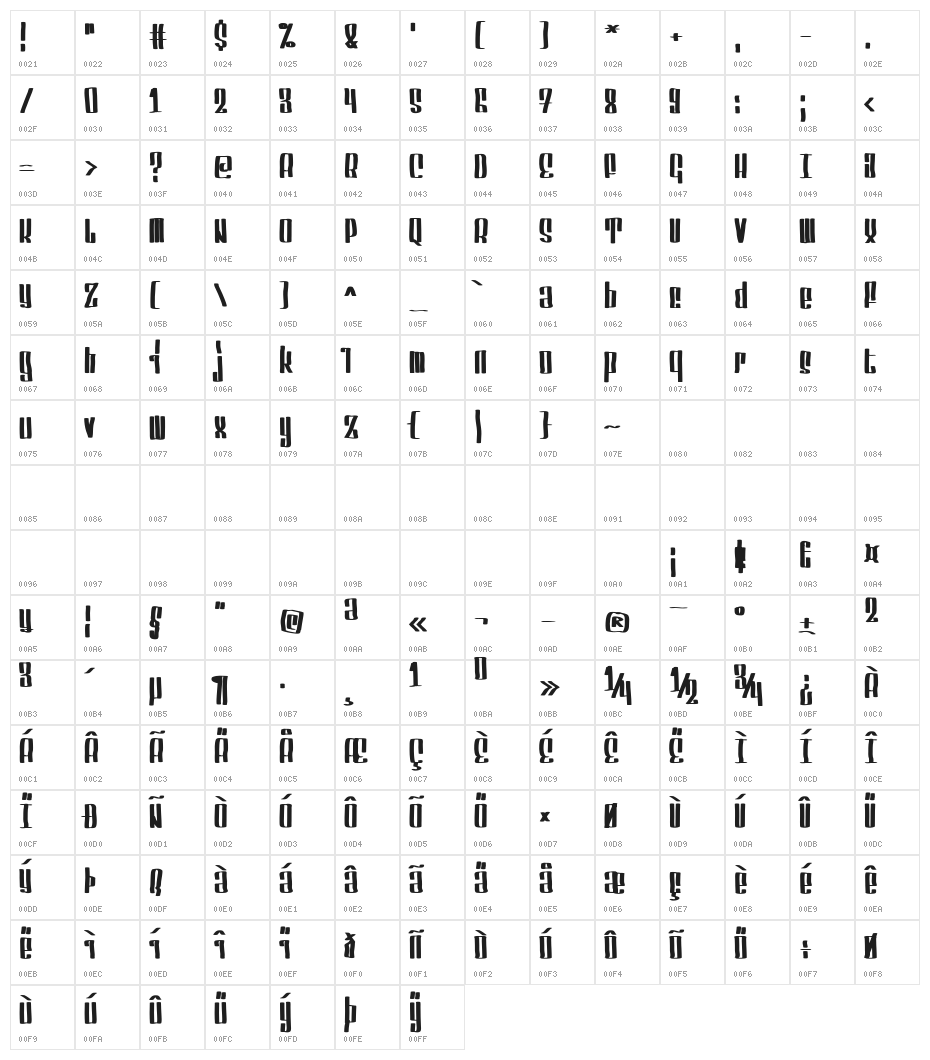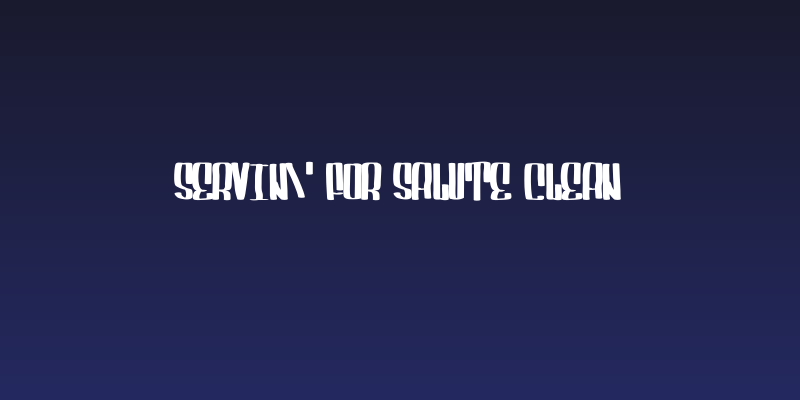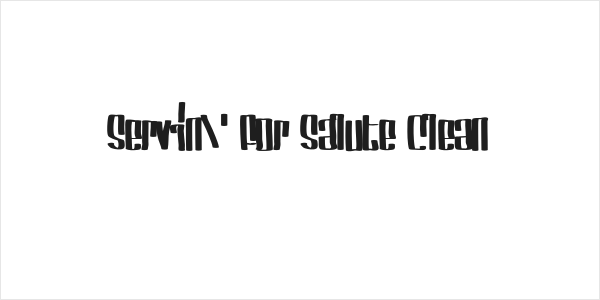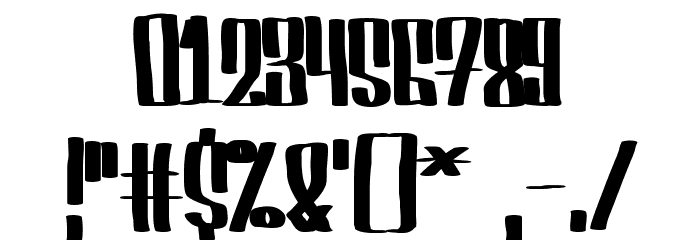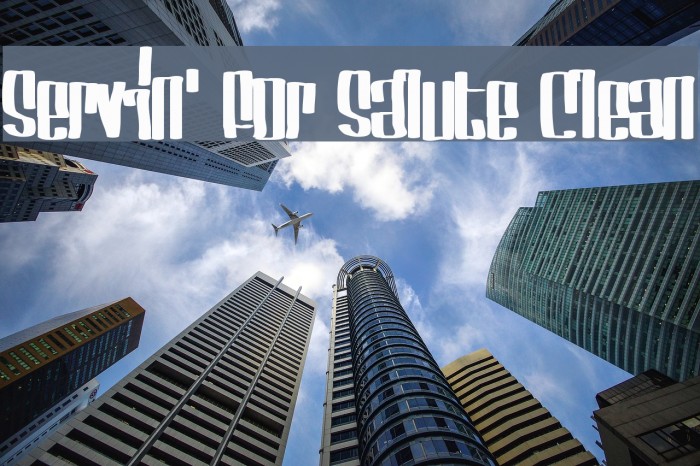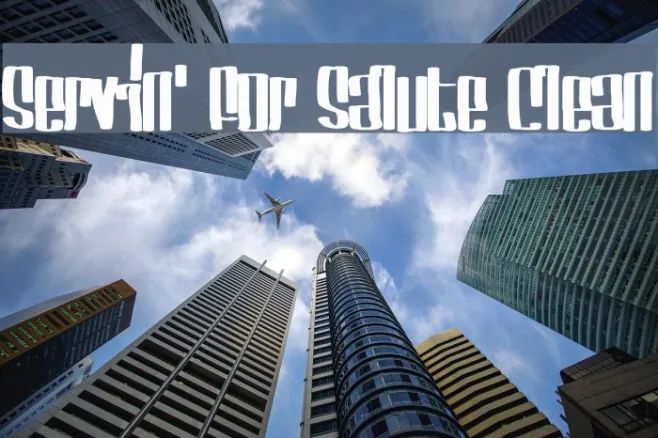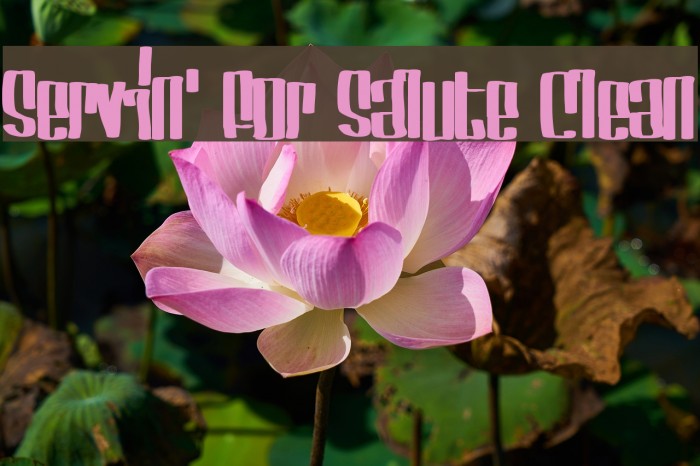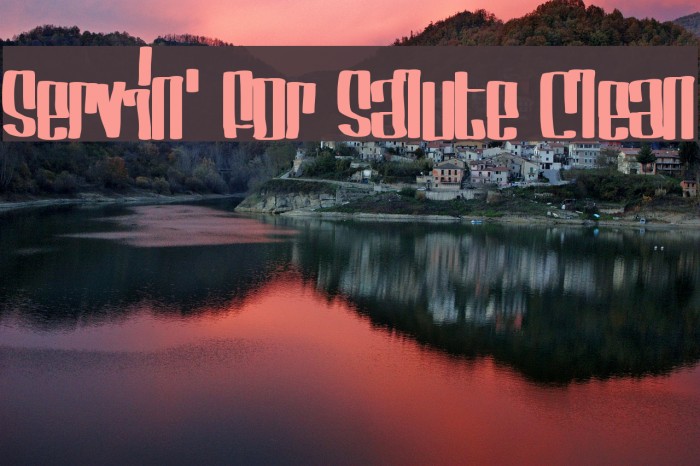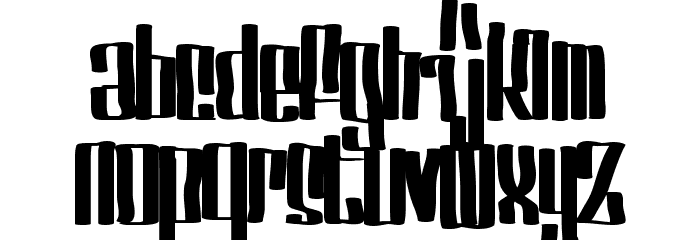
Servin' For Salute Clean Font
Servin' For Salute Clean Description
This font features a bold and striking design with a strong presence. The characters are tall and narrow, giving a condensed appearance that emphasizes verticality. The strokes are thick and consistent, creating a uniform look across all letters and numbers. The uppercase and lowercase letters maintain a cohesive style, with slight variations in the curves and angles to distinguish them. The numbers are similarly styled, ensuring readability while maintaining the overall aesthetic. Special characters are integrated seamlessly, matching the bold and condensed nature of the font. This font is ideal for making a statement, with its eye-catching design and impactful presence.
| Width | Condensed |
| Proposed Projects | Ideal for posters, headlines, branding, and any project requiring a bold statement. |